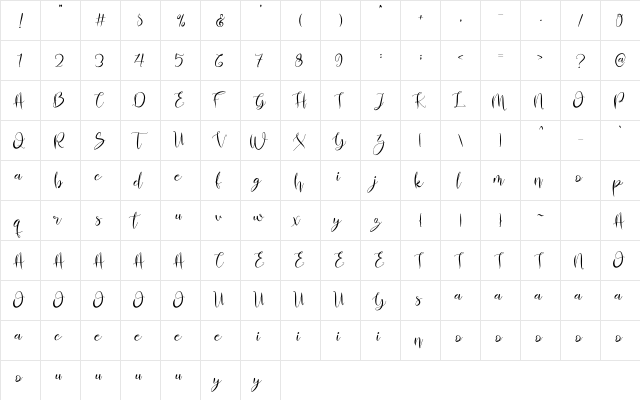
Almahira Regular
| Foundry | Rometheme |
| Designer | Rometheme |
Design Context for Almahira Typeface
Almahira is a composed and adaptable typeface that performs quietly and consistently across a wide range of design contexts.